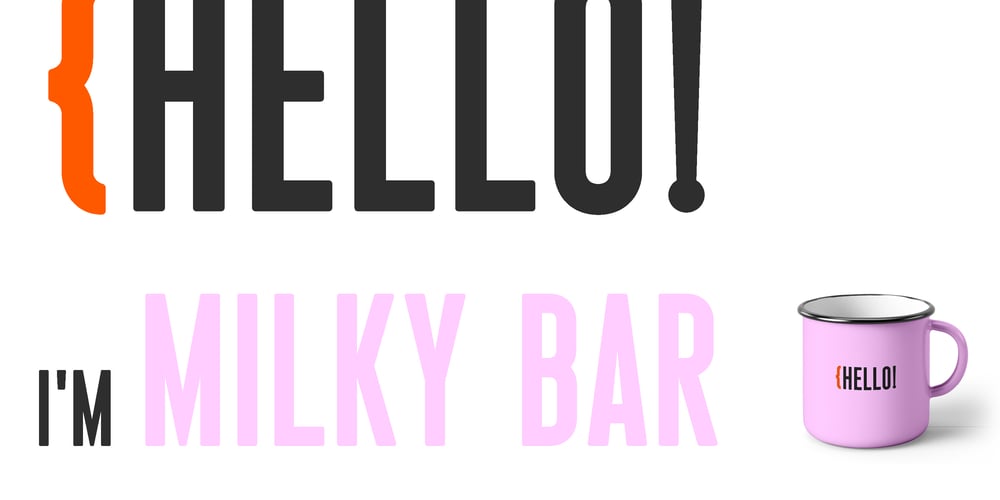
Milky Bar Font Family was designed by Malgorzata Bartosik and published by Malgorzata Bartosik. Milky Bar contains 3 styles and family package options. Milky Bar is retro style sans family inspired by food tables in milky bars in Warsaw. It contains Latin and Cyrillic alphabet, Latin with Western, Central and South Eastern European diacritics. This typeface family contains 3 styles from Condensed to Normal. Milky Bar is perfect for display purposes.